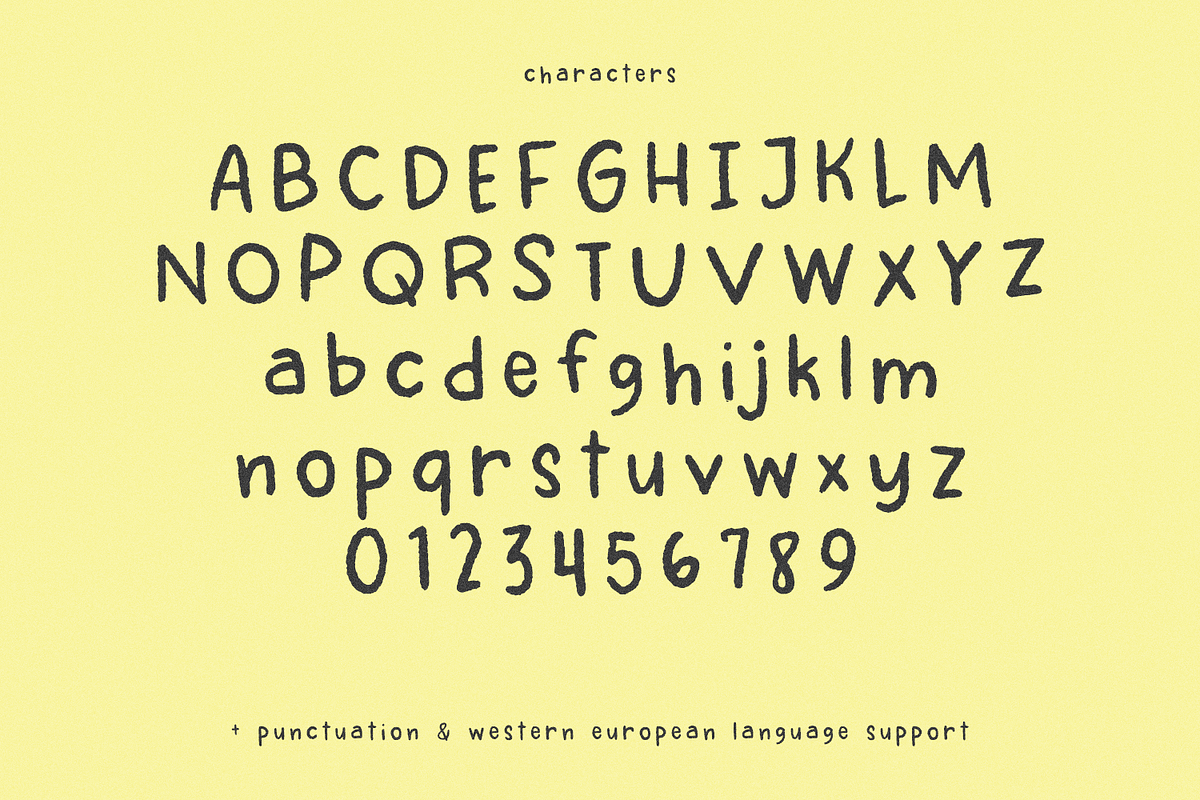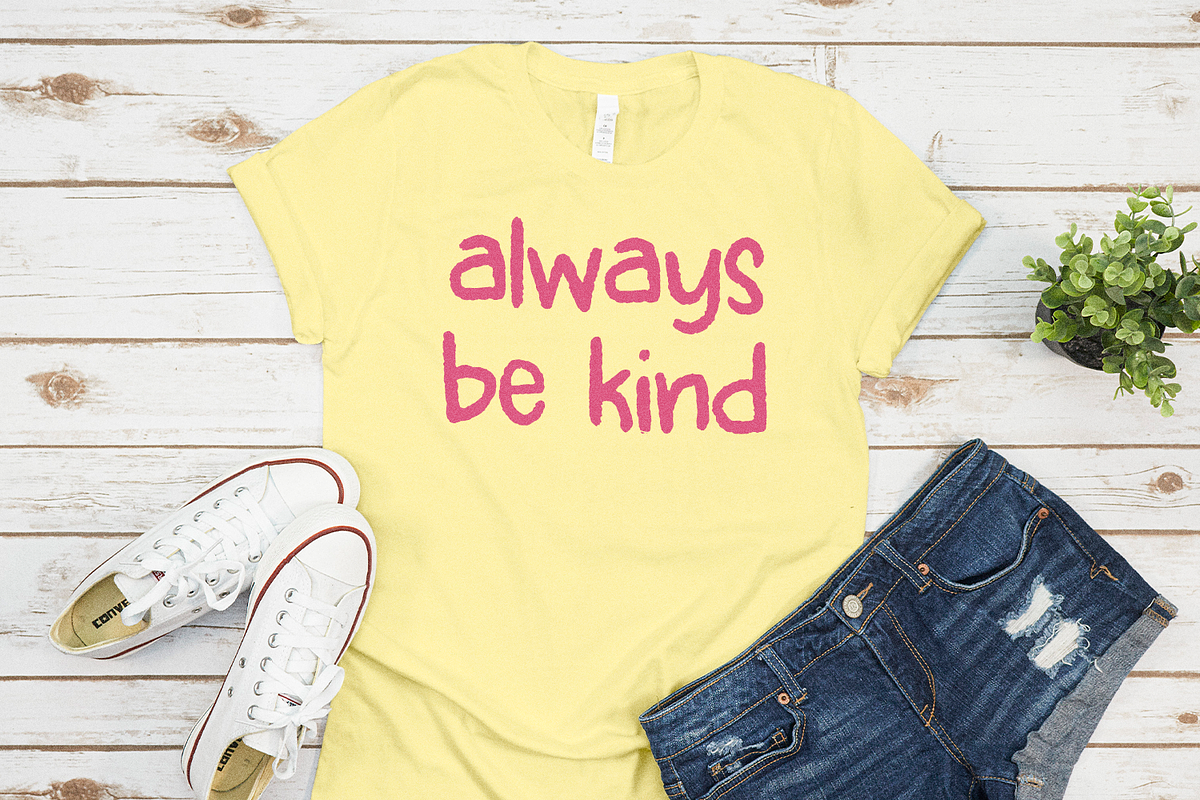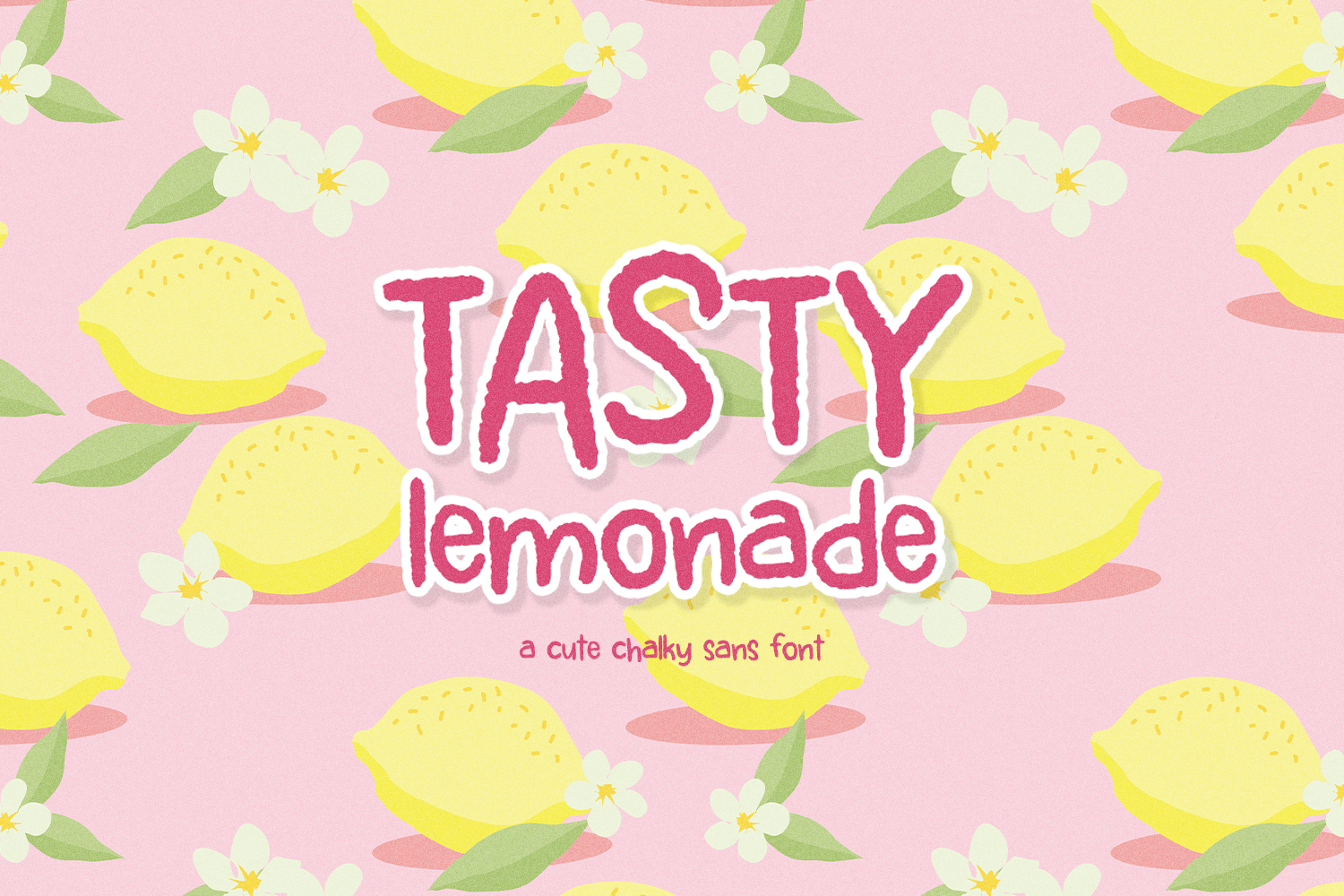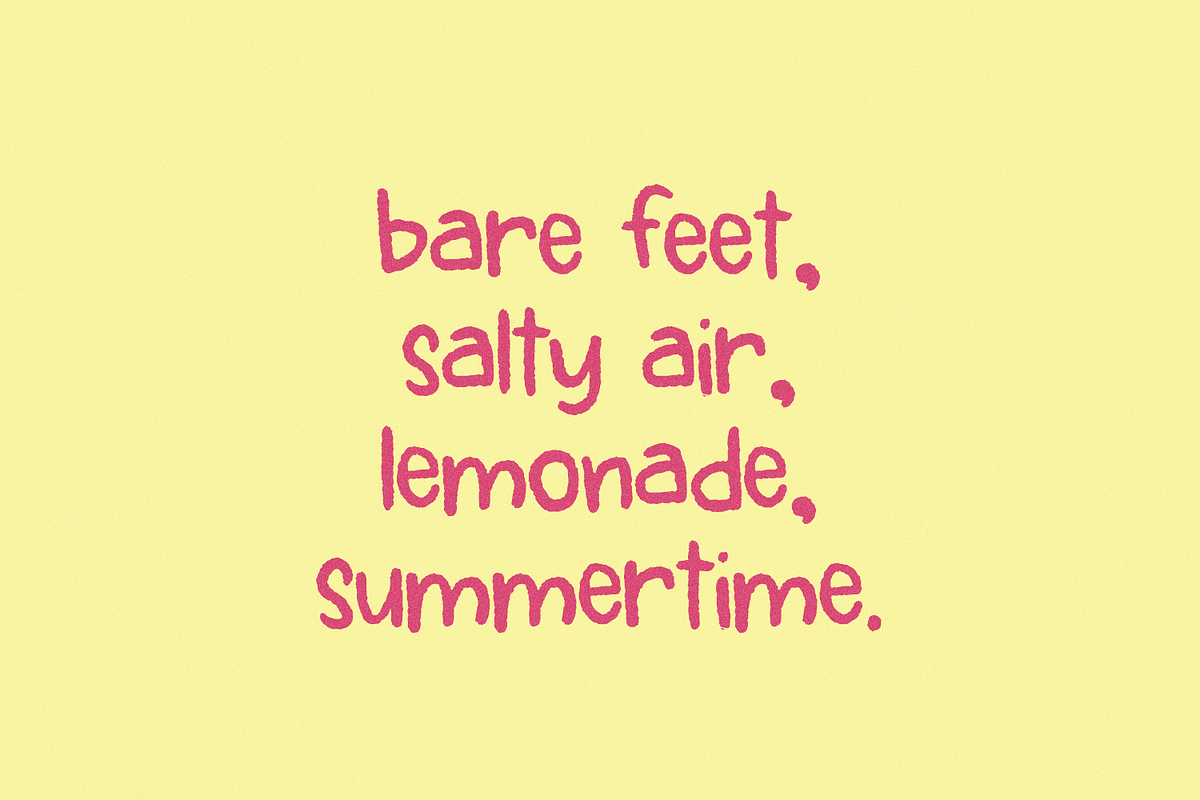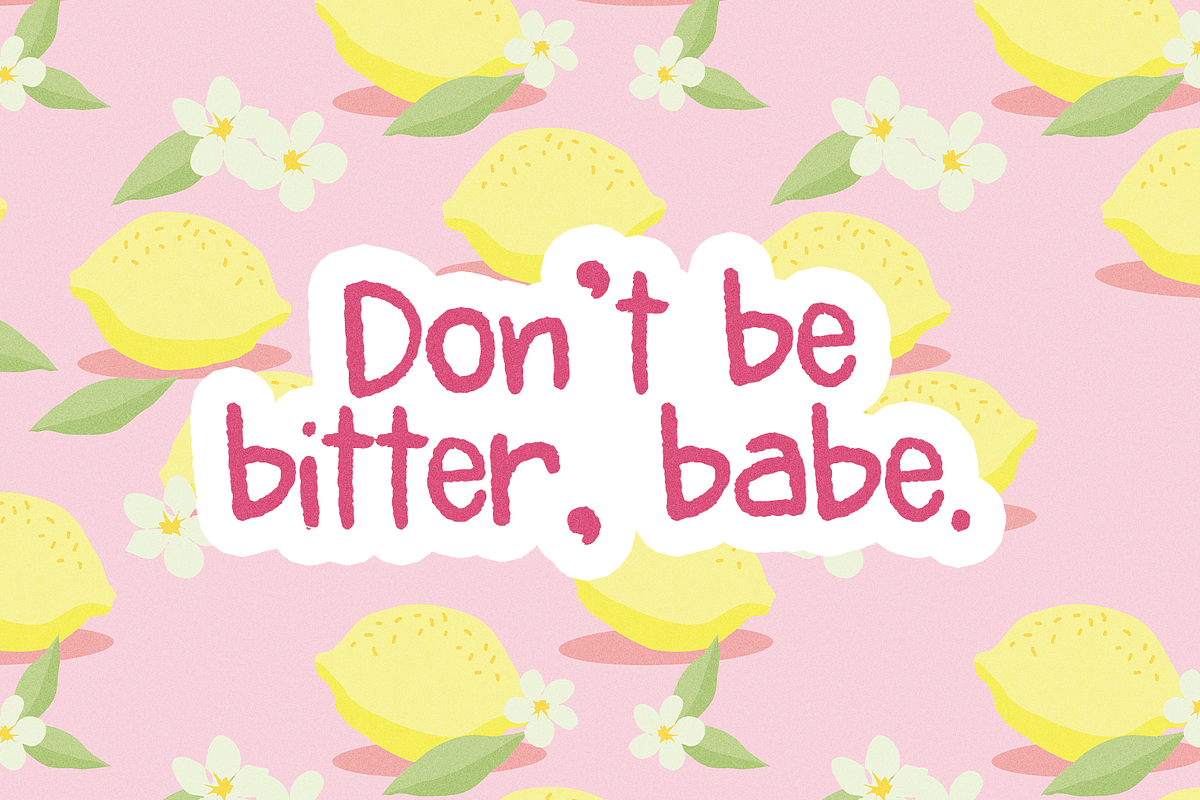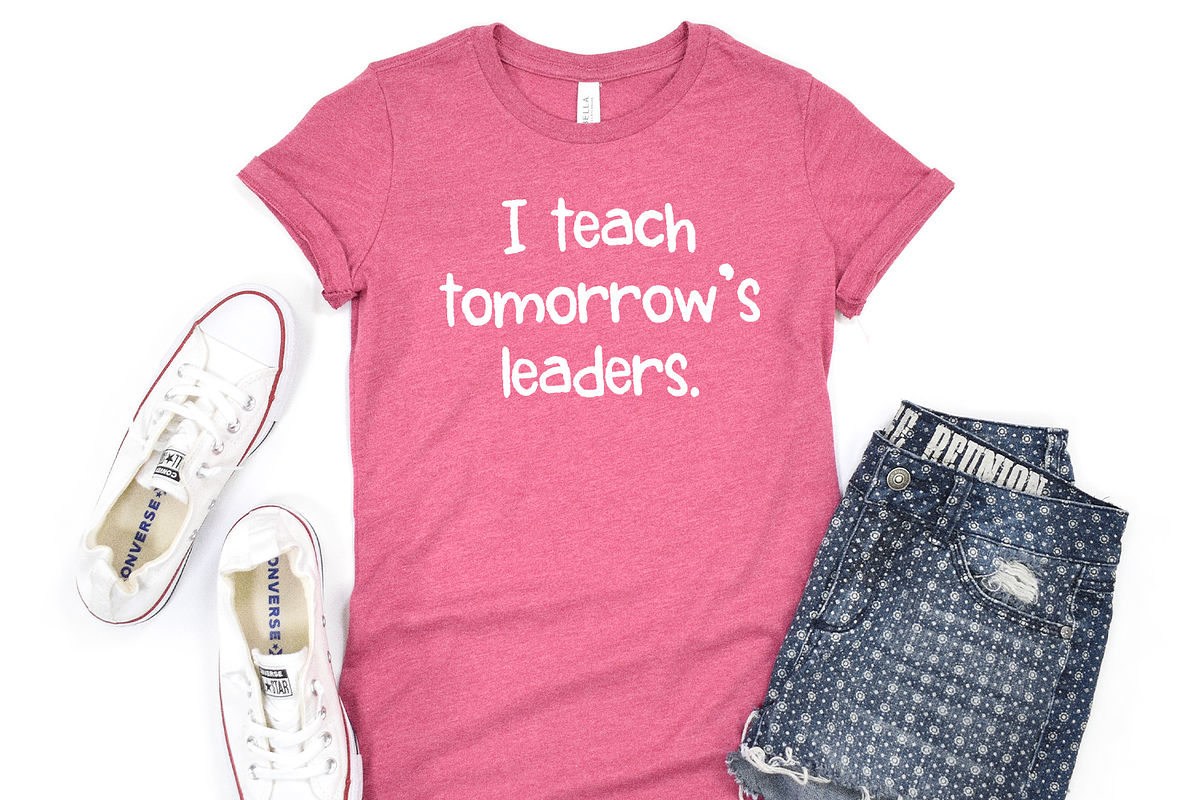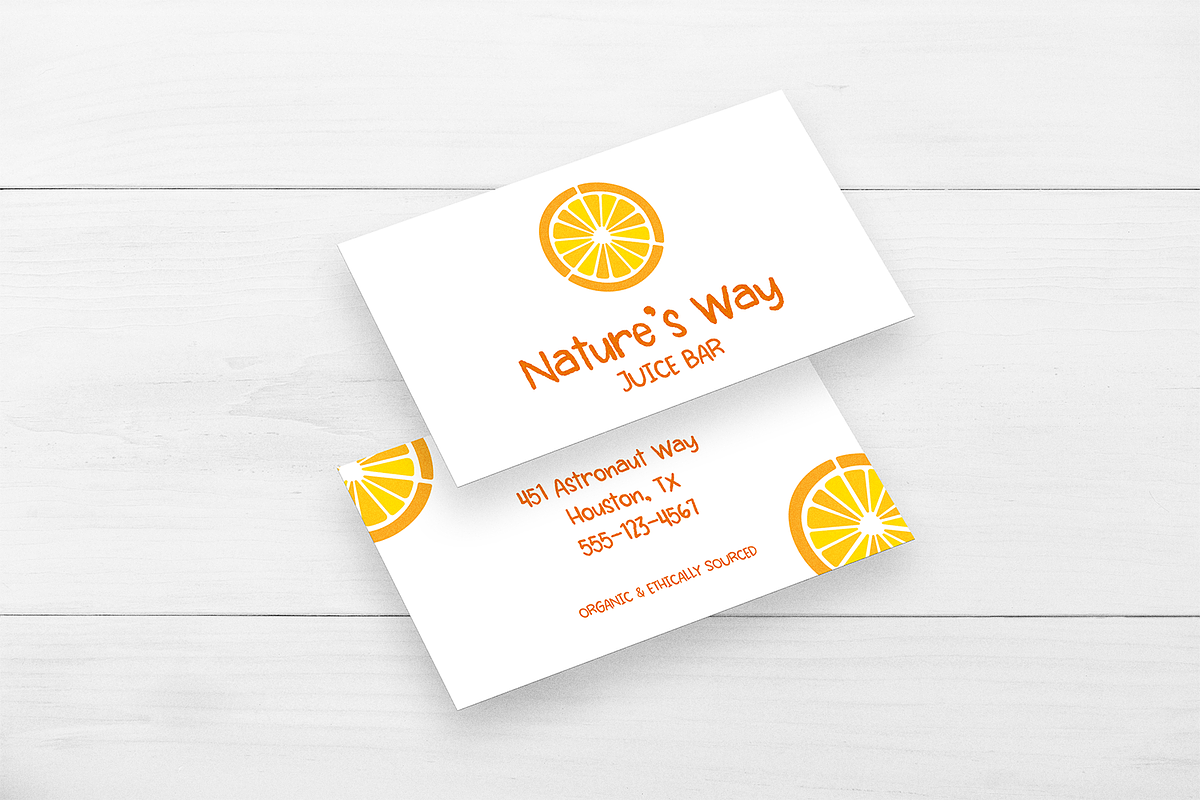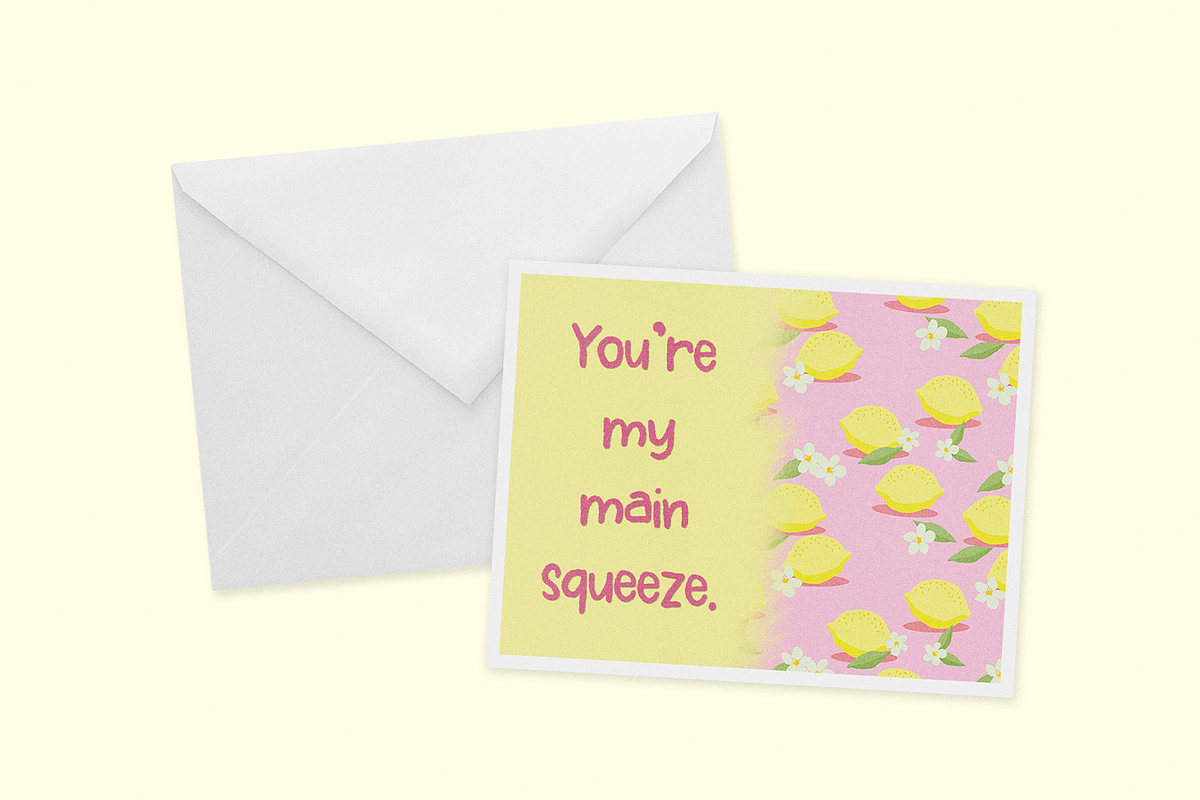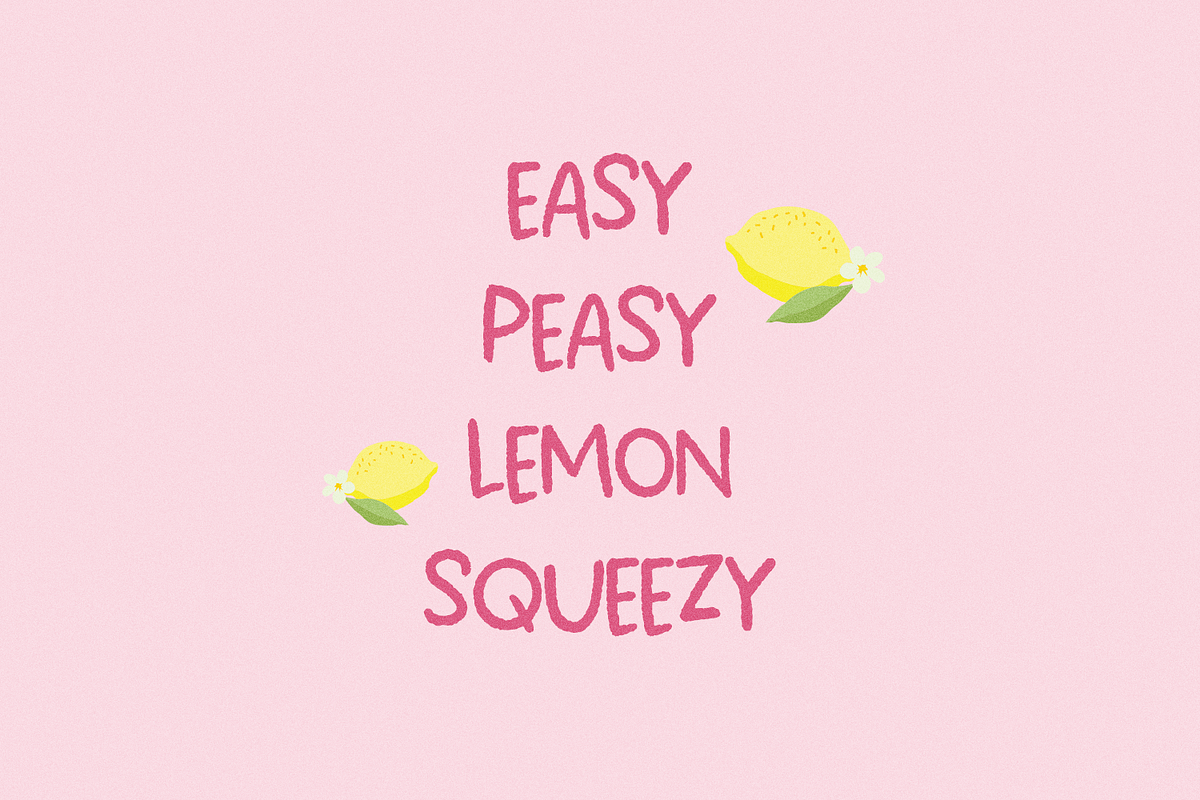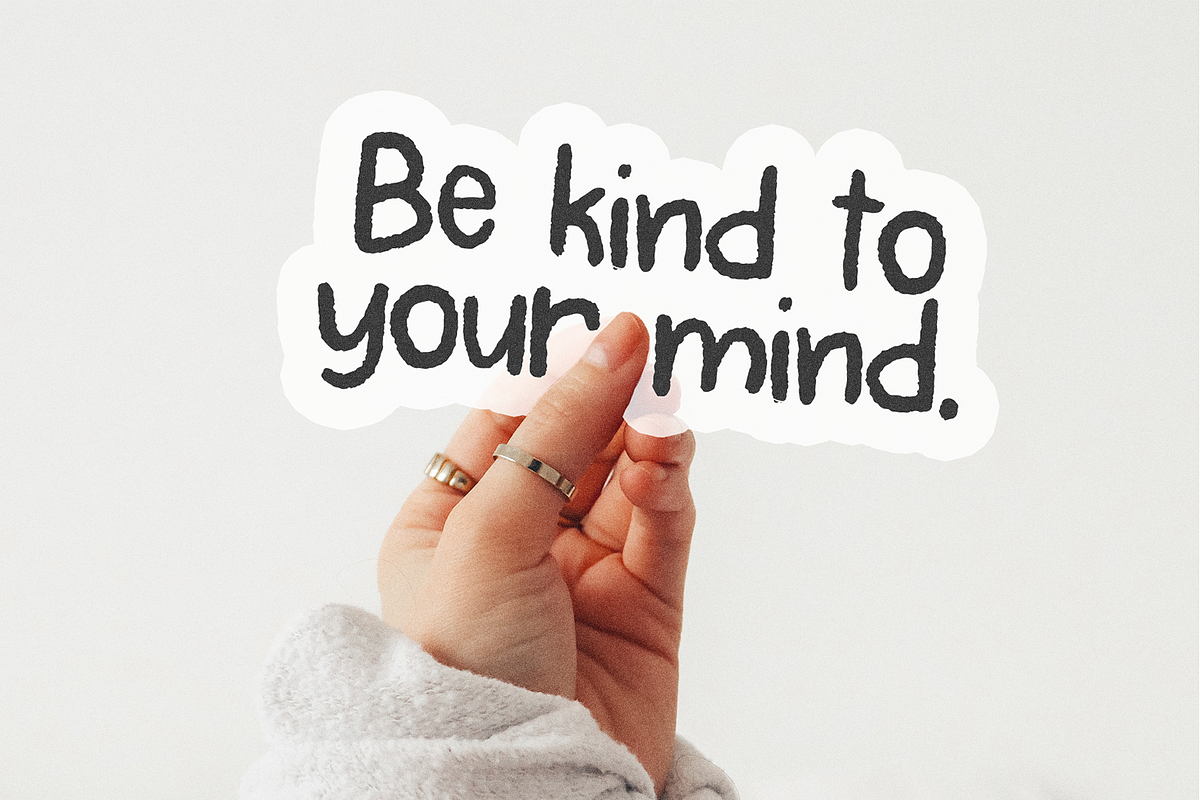
Tasty Lemonade - A Handwritten Font
Tasty Lemonade Sans is a cute sans font with a chalk-like texture. This font is a good fit for logos & branding, greeting cards, painted banners, digital planners, note-taking apps, & Canva. Because Tasty Lemonade is textured, it may not be the best fit for vinyl cutting projects - this font is best for print or digital applications.
Tasty Lemonade Sans includes:
- full upper + lowercase characters
- numbers + punctuation
- Western European language support - English, French, Spanish, Portuguese (Brazil), Portuguese (Portugal), Italian, German (Germany), German (Austria), Dutch, Danish, Swedish, Norwegian (Bokmål and Nynorsk), Finnish, Icelandic, Irish, Welsh